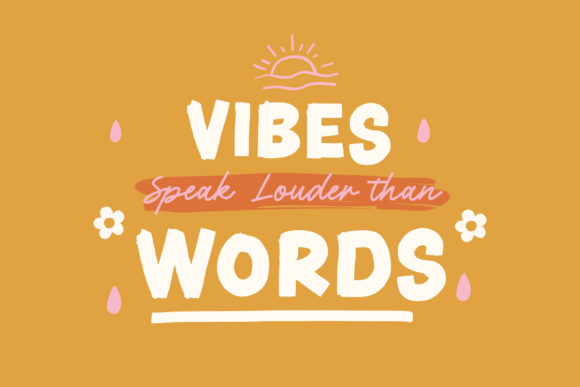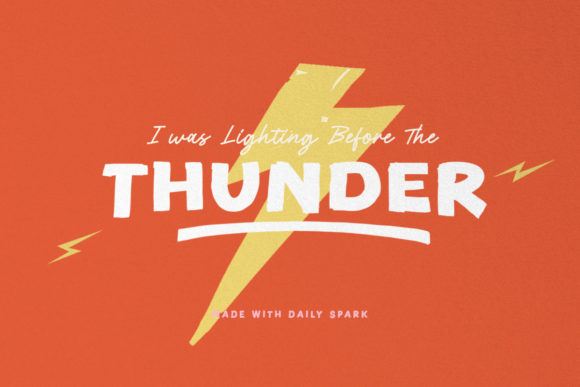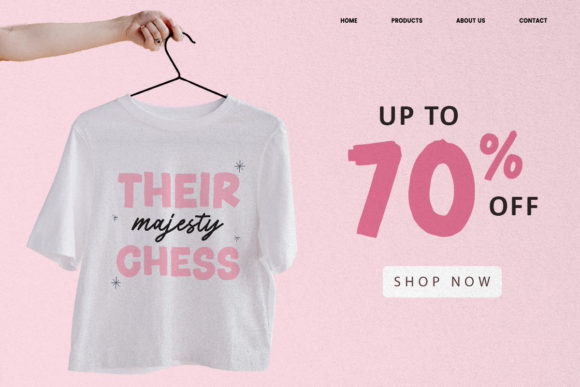
Introducing Daily Spark Font: Elevate Your Designs with Bold Sans and Script
Are you a designer, crafty enthusiast, or business owner looking for the perfect font to elevate your brand or project? Look no further than Daily Spark Font, a versatile package of two complementary fonts: Bold Sans and Script. This dynamic duo is designed to add a touch of handmade charm to your designs, making it ideal for a wide range of applications, from branding and merchandise to quotes and more.
What is Daily Spark Font?
Daily Spark Font is a carefully crafted font package that includes two distinct fonts: Bold Sans and Script. These fonts are designed to work in harmony, providing a beautiful contrast that adds visual interest to any design. The Bold Sans font is perfect for headlines, titles, and emphasis, while the Script font adds a touch of elegance and sophistication.
Key Features of Daily Spark Font
- Handmade feel: Daily Spark Font boasts a unique, handmade feel that sets it apart from more generic fonts. This makes it perfect for designers and crafters looking to add a personal touch to their work.
- Versatile: With two complementary fonts in one package, Daily Spark Font is incredibly versatile. Use it for branding, merchandise, quotes, and more.
- Easy to read: Both the Bold Sans and Script fonts are easy to read, making them perfect for body text, headlines, and titles.
- Scalable: Daily Spark Font is designed to look great at any size, from small captions to large headlines.
Use Cases for Daily Spark Font
So, what can you use Daily Spark Font for? The possibilities are endless! Here are a few ideas to get you started:
- Branding: Use Daily Spark Font to create a unique and memorable brand identity. The Bold Sans font is perfect for logos, while the Script font adds a touch of elegance to business cards and letterheads.
- Merchandise: Add a personal touch to your merchandise with Daily Spark Font. Use it for t-shirts, mugs, tote bags, and more.
- Quotes and typography: Daily Spark Font is perfect for creating inspiring quotes and typography-focused designs. The handmade feel of the font adds a touch of warmth and personality to your designs.
- Signage and displays: Use Daily Spark Font to create eye-catching signage and displays. The Bold Sans font is perfect for headlines, while the Script font adds a touch of sophistication.
Why Choose Daily Spark Font?
With so many fonts available, why choose Daily Spark Font? Here are a few reasons why designers and crafters love this font package:
- Unique and distinctive: Daily Spark Font stands out from more generic fonts. Its handmade feel and unique character make it perfect for designers looking to create something special.
- High-quality design: Daily Spark Font is designed with quality in mind. The fonts are crisp, clear, and easy to read, making them perfect for a wide range of applications.
Daily Spark Font is a versatile and unique font package that’s perfect for designers, crafters, and business owners looking to elevate their brand or project. With its handmade feel, bold sans, and script fonts, this package offers endless possibilities for creative expression. Whether you’re looking to create branding materials, merchandise, quotes, or signage, Daily Spark Font is the perfect choice. So why wait? Download Daily Spark Font today and start creating something amazing!